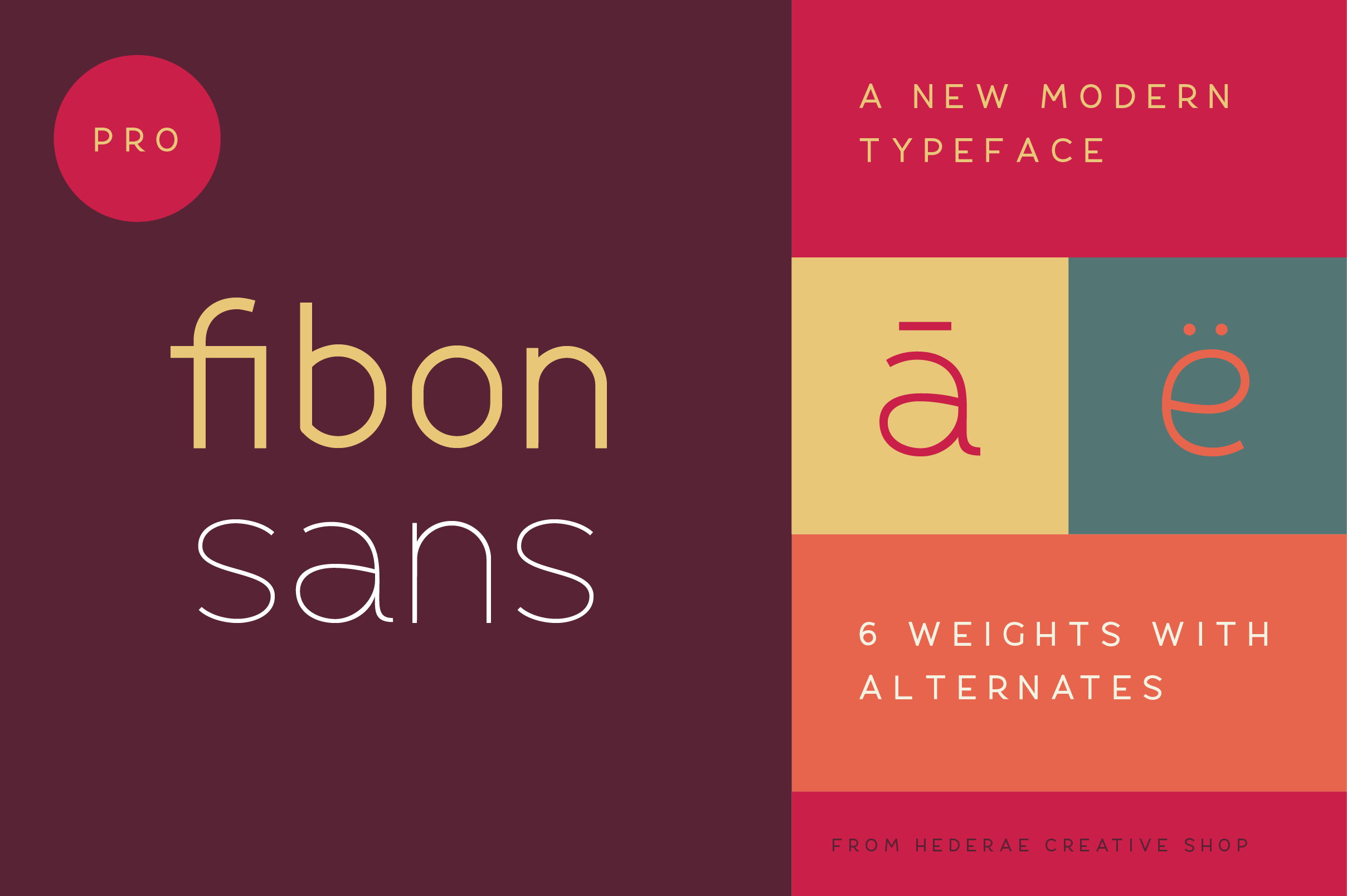
Fibon Sans Font Family
Fibon Sans is a new transitional sans-serif type family in 6 weights.
It is a balanced, low contrast, geometric, highly legible typeface very well suited for any display and text use. Its curves make it a dynamic typeface when composing a text, ideal for those who want to add modern touch to their compositions. Fibon Sans is an excellent choice for fashion magazines, logotypes and shops.
This OpenType font family offers also support for CE languages. Includes ligatures.